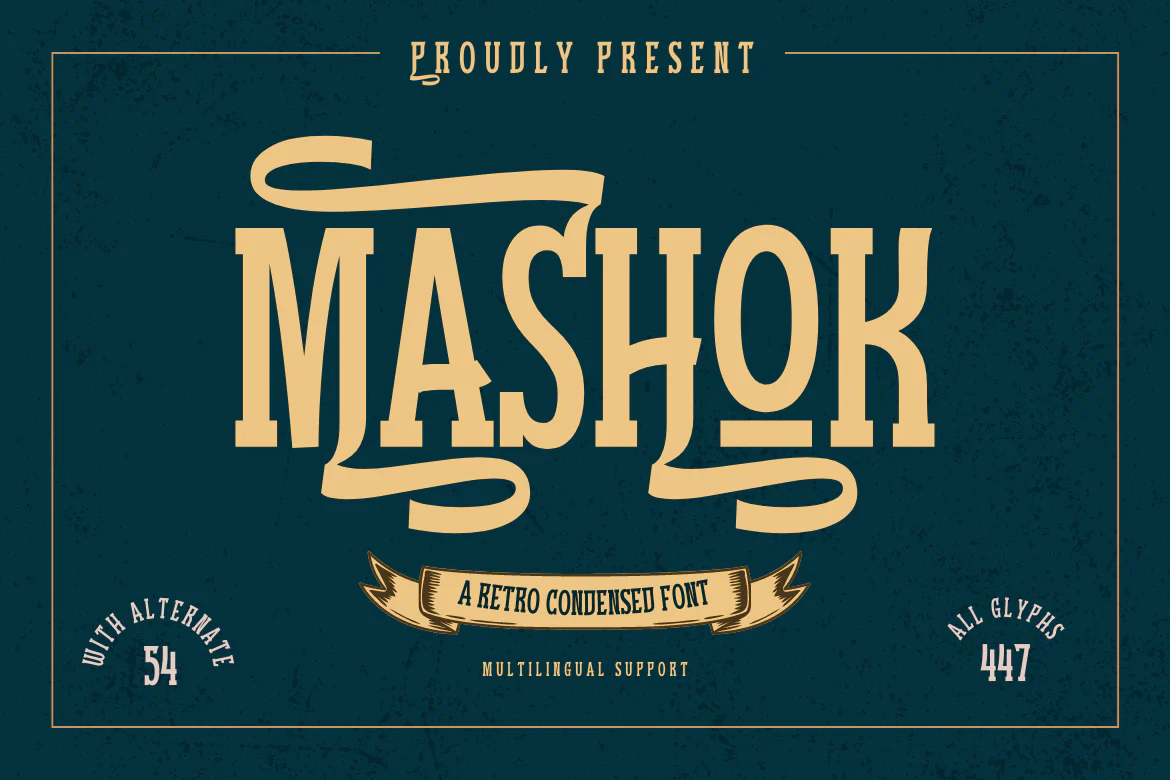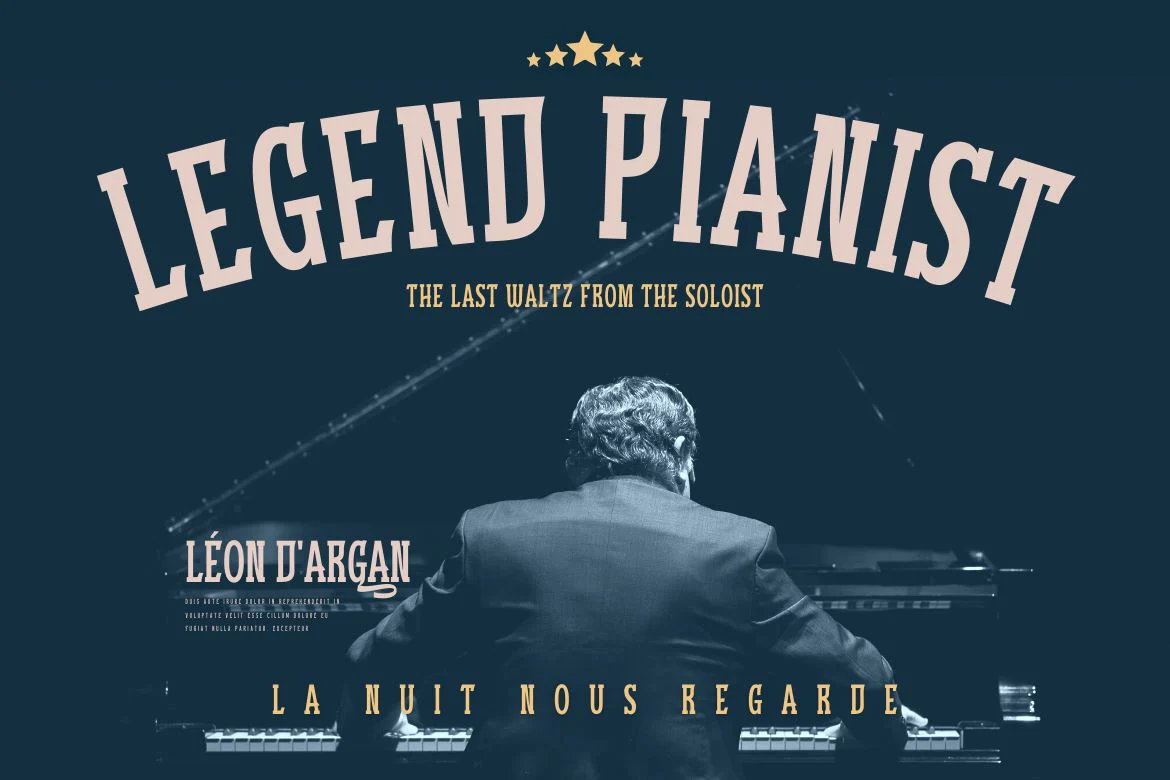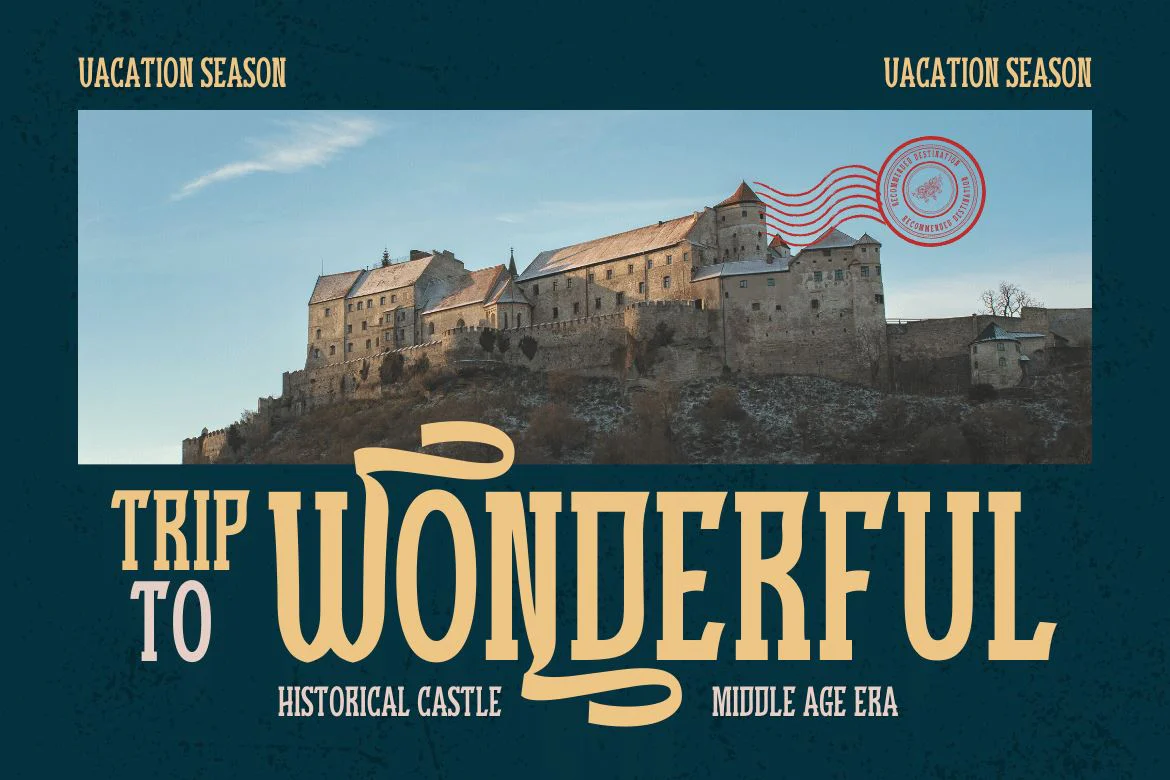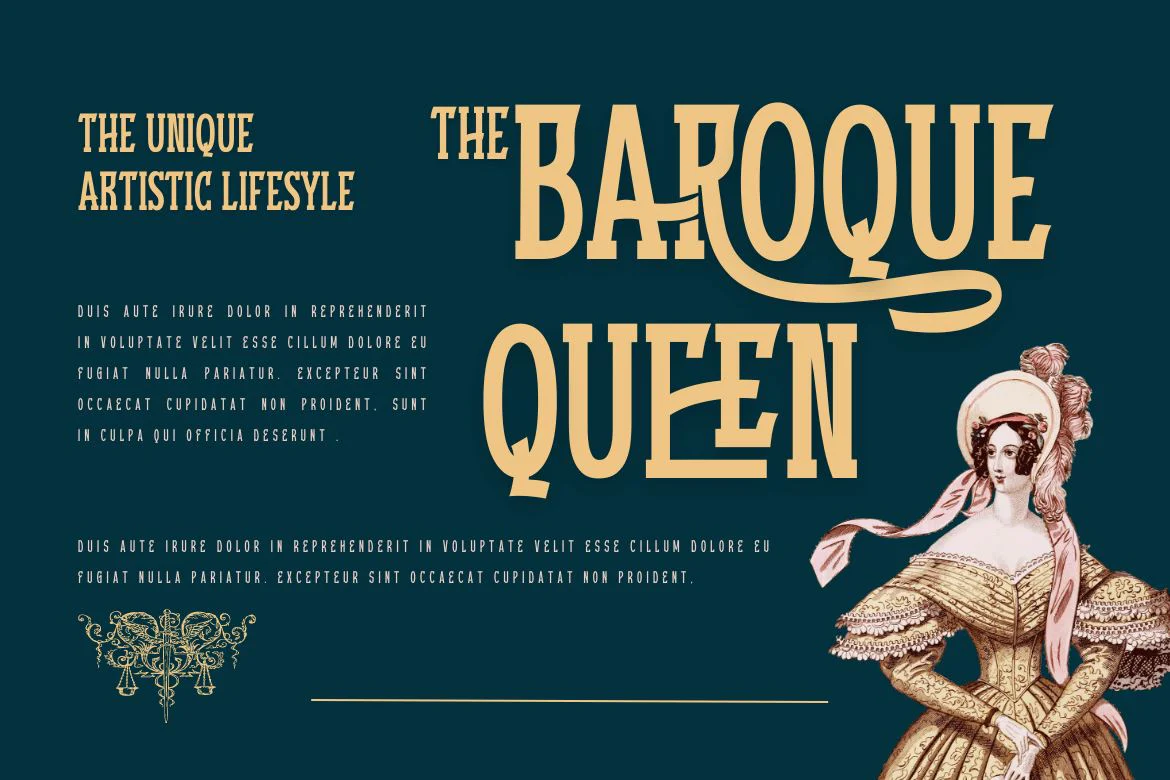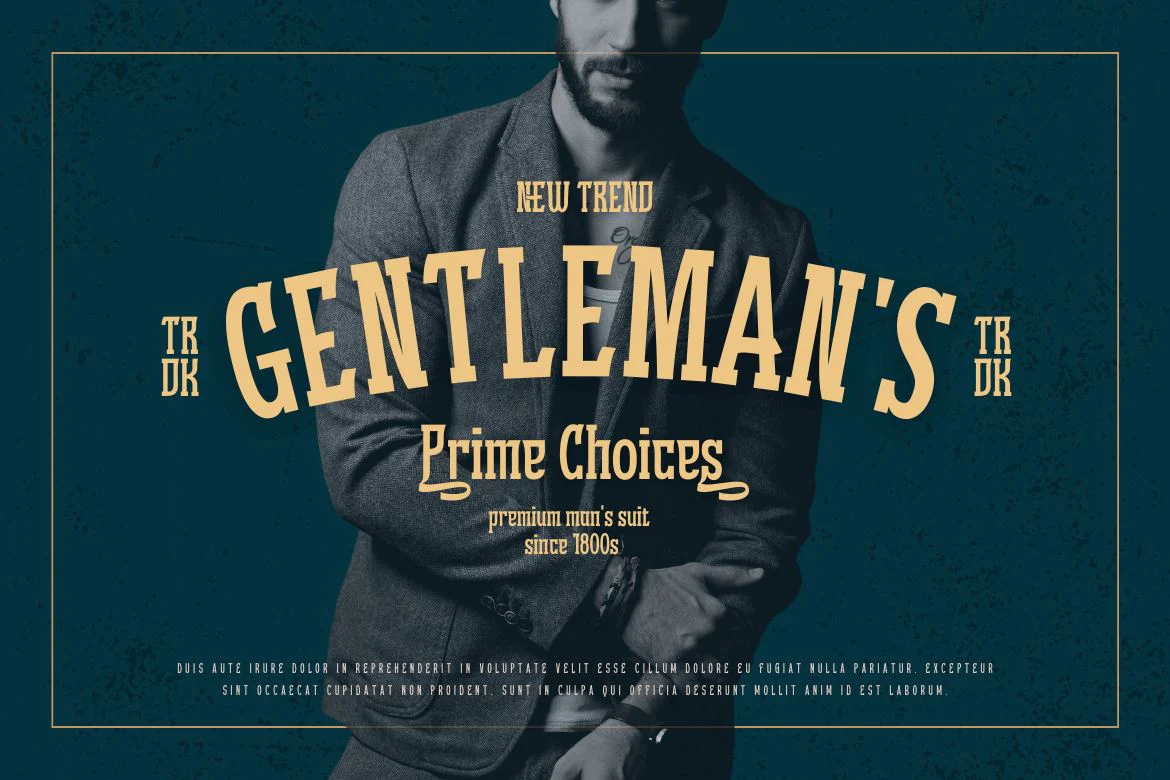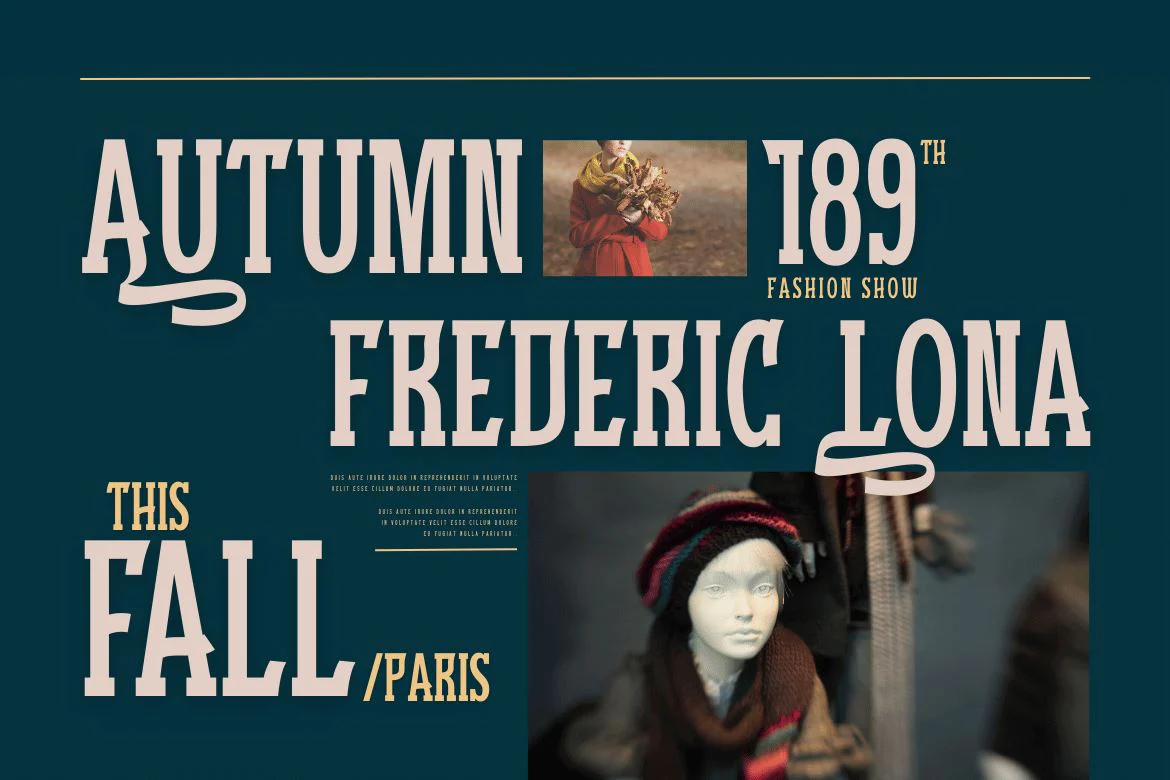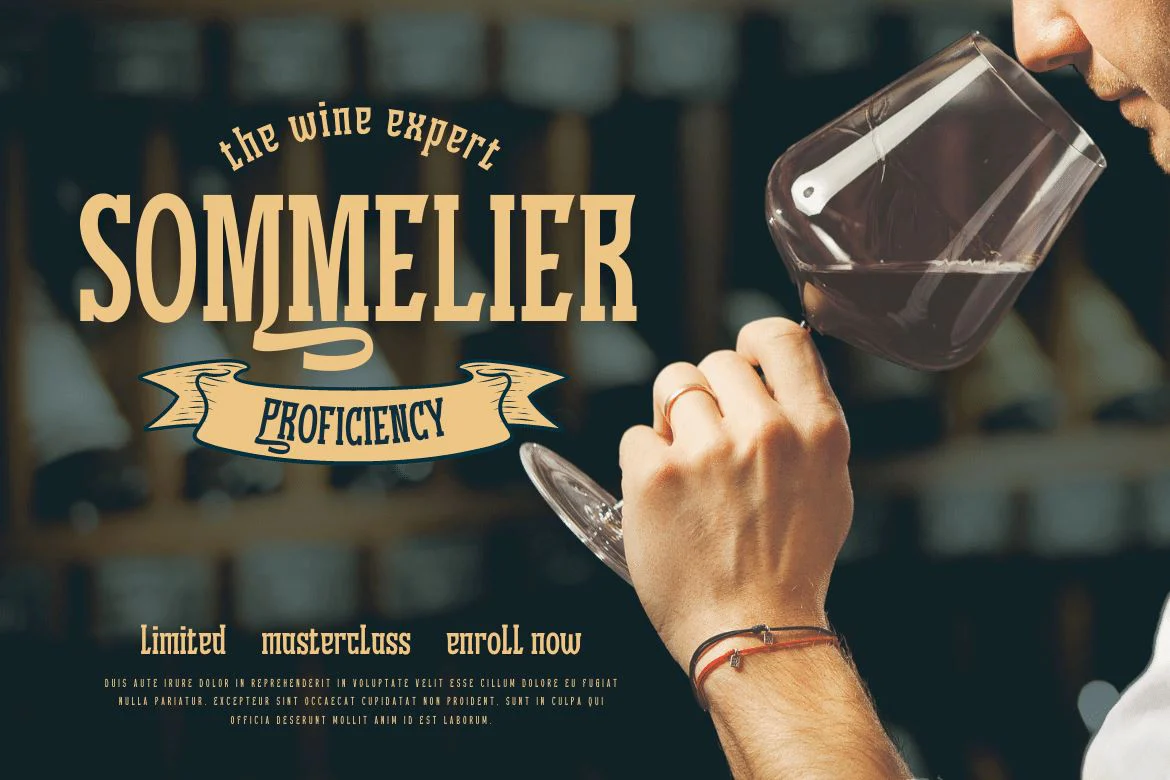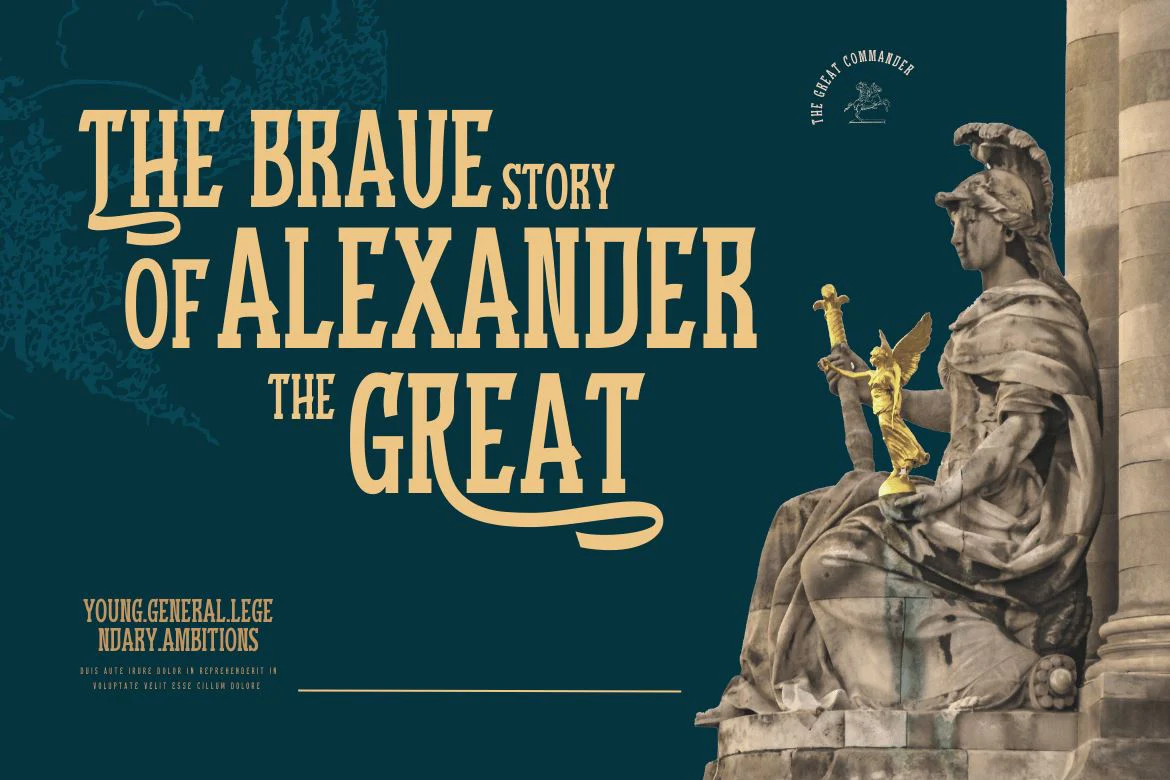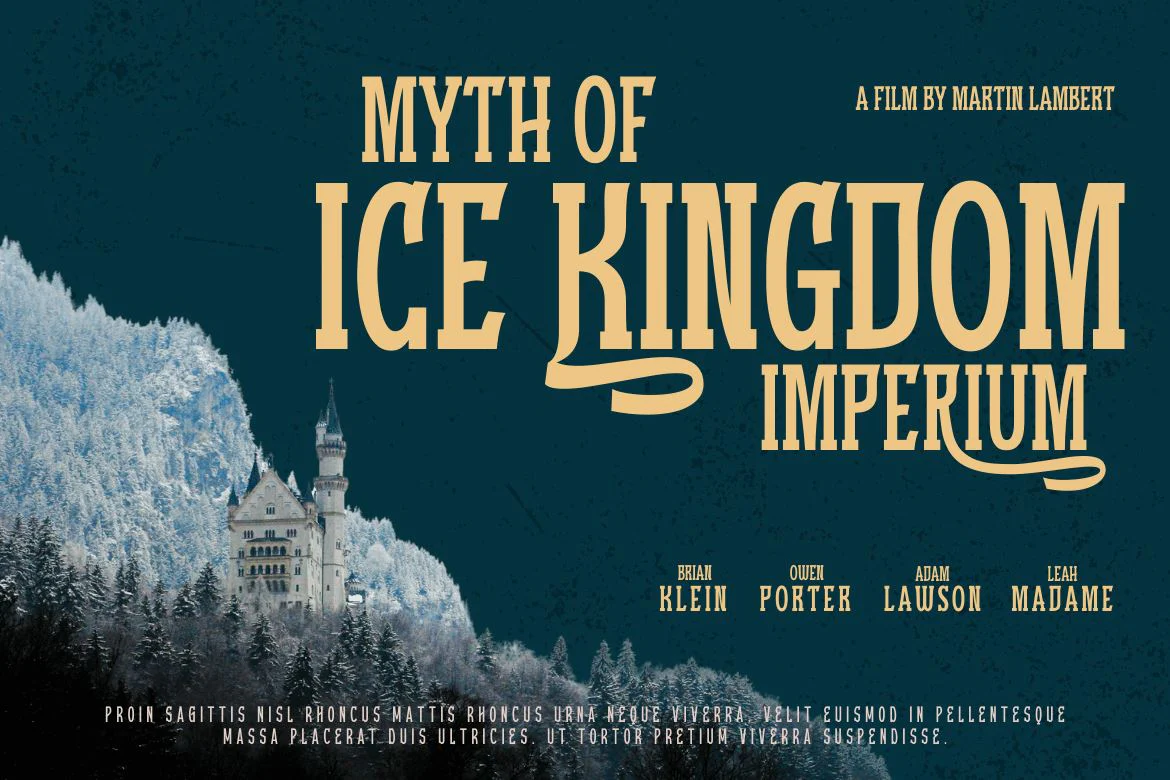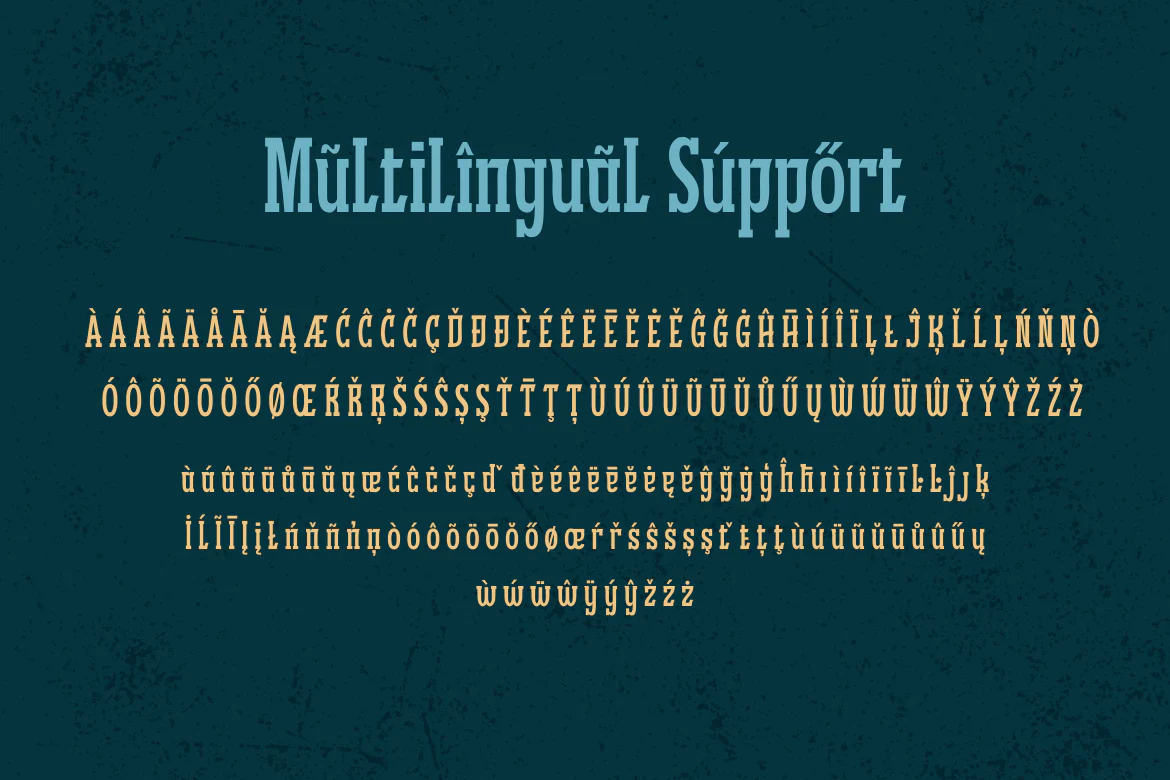
Mashok | Retro Condensed Font
Mashok is a retro condensed font that exudes a vintage feel, perfect for adding a touch of nostalgia to your designs. This font features a tall and narrow letterform, making it ideal for creating eye-catching headlines and titles. With its unique stylistic alternates and ligatures, Mashok adds an extra level of charm and personality to your designs. Whether you’re creating posters, book covers, or other graphic design projects, Mashok is sure to make your text stand out. Give your designs a retro flair with Mashok today!